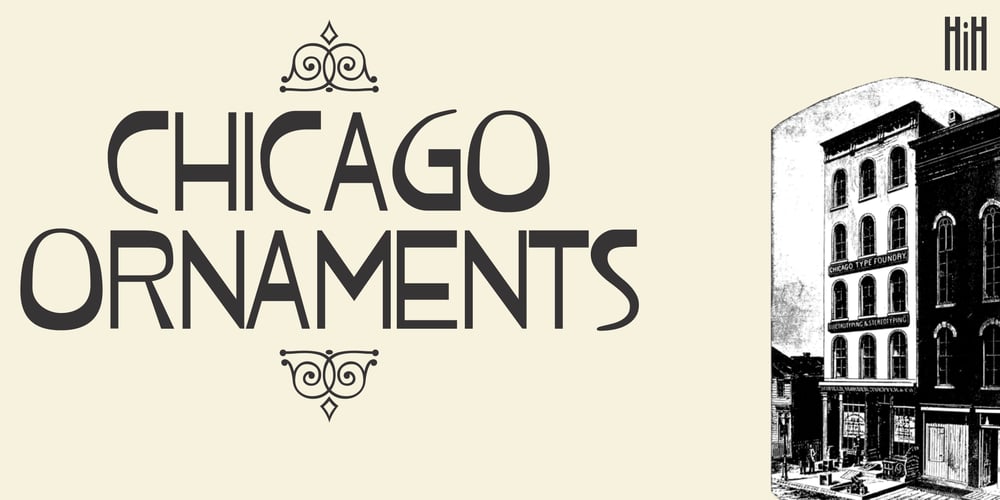
Chicago Ornaments Font Family was designed by published by HiH. Chicago Ornaments contains 1 styles and family package options. Chicago Ornaments is a collection of decorative cuts cast by the Chicago Type Foundry of Marder, Luse & Co. of 139-141 Monroe Street in Chicago, Illinois. This collection was shown in their 1890 Price List. According to William E. Loy, at least some of them were designed by William F. Capitain. Chicago was one of the innovative Midwest type foundries, introducing the American Point System. These designs represent the late Victorian period. After 1890, with the posters of Jules Cheret taking Paris by storm, Art Nouveau gradually began to displace Victorian style. In type design, both styles competed against each other until about the end of the century. Designers may want to consider using these ornaments when using Victorian style typefaces, like our Cruickshank, Edison and Freak – as well as faces by others such as Karnac, Kismet and Quaint Gothic. Included in the font are a set of Dormer-inspired caps, numerals and a few other glyphs – also from the Victorian period.